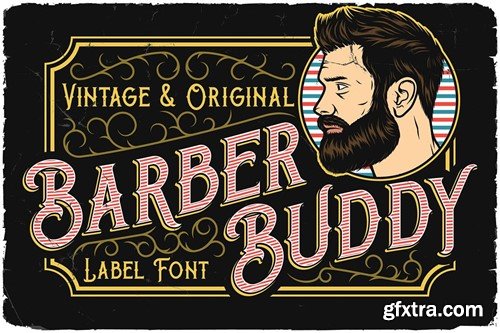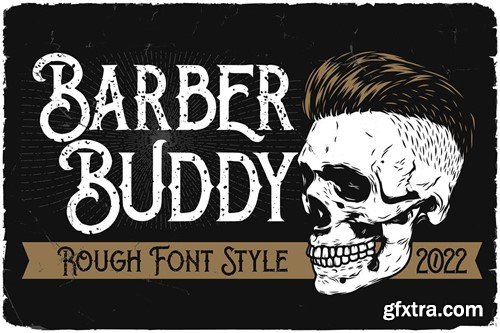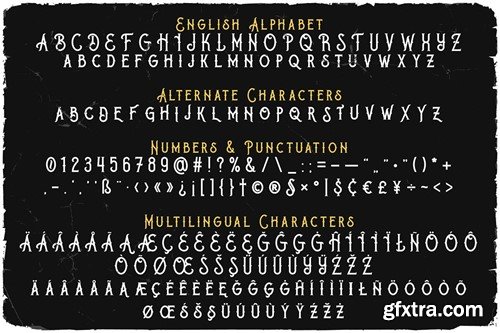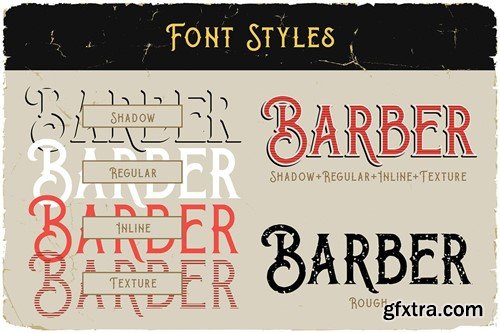
Barber Buddy Display Font R4A3TQZ
Barber Buddy Display Font
Unique bold, vintage & decorative serif font. Comes with multilingual support & alternates - great for your new logo or branding project.
• 5 font versions
• Multilingual support
• Great for retro or vintage style branding projects